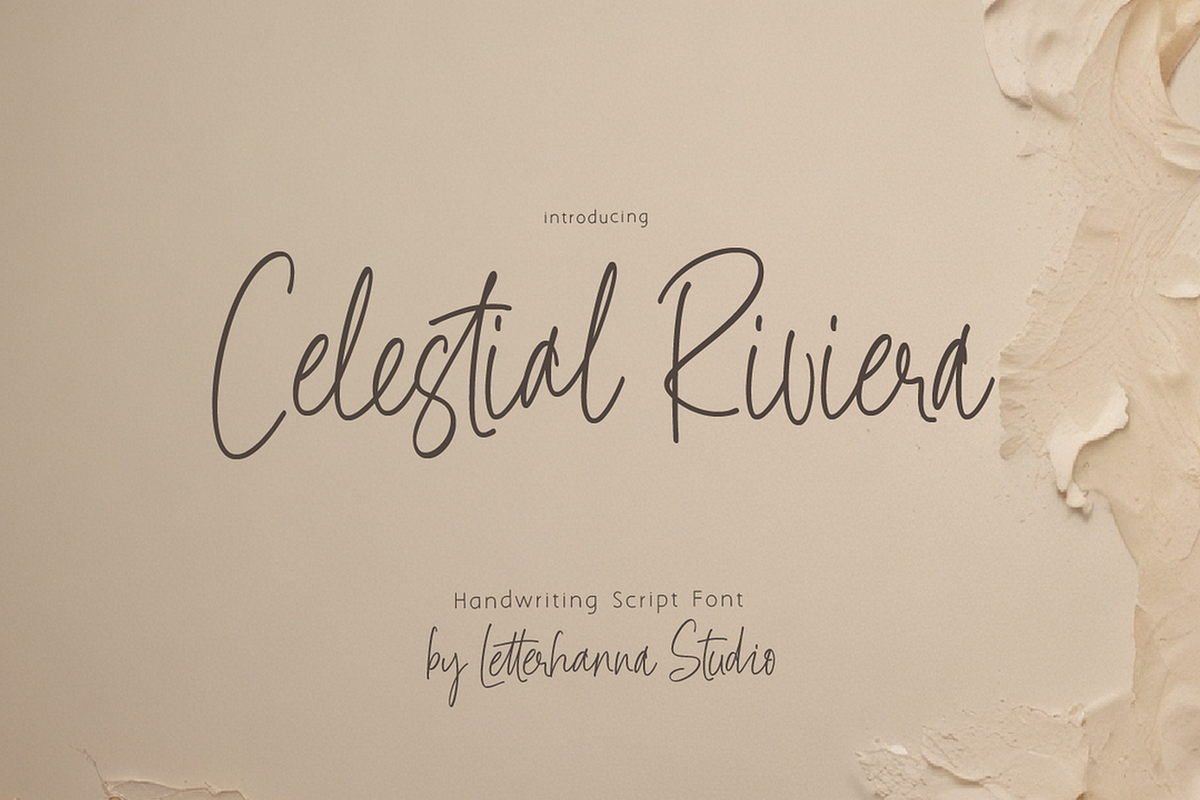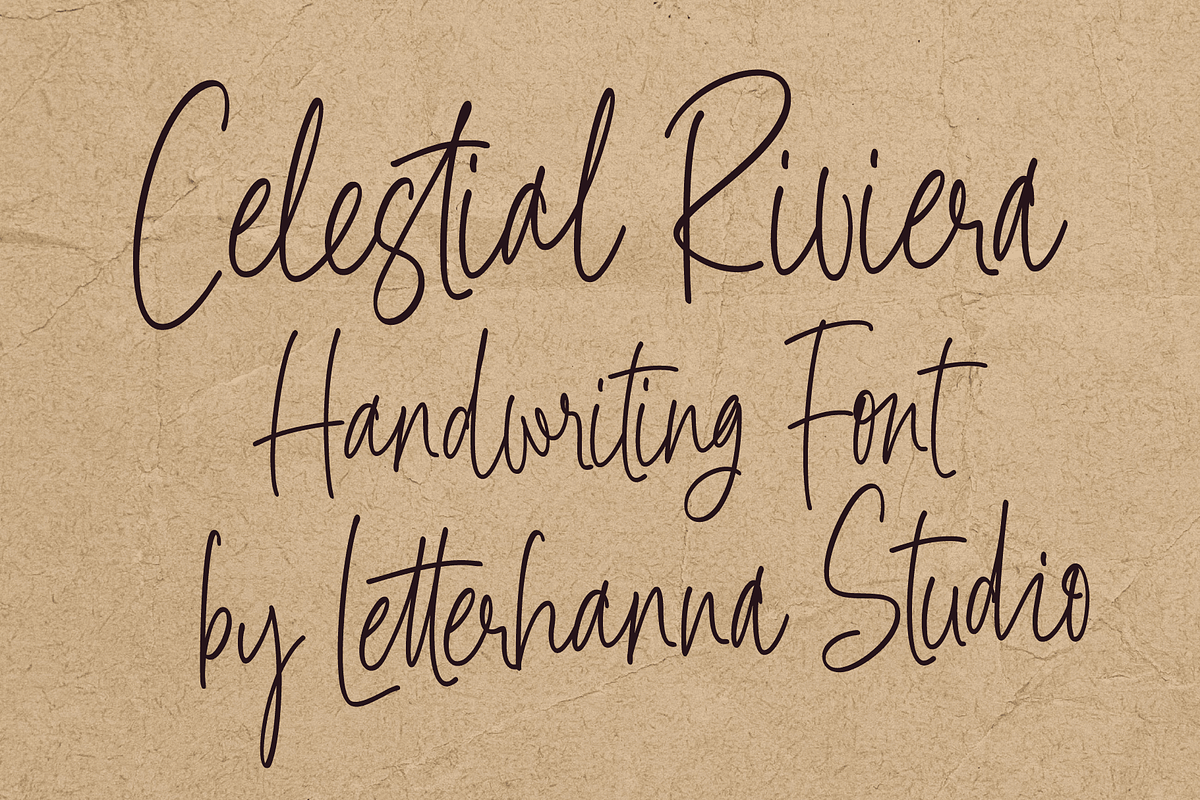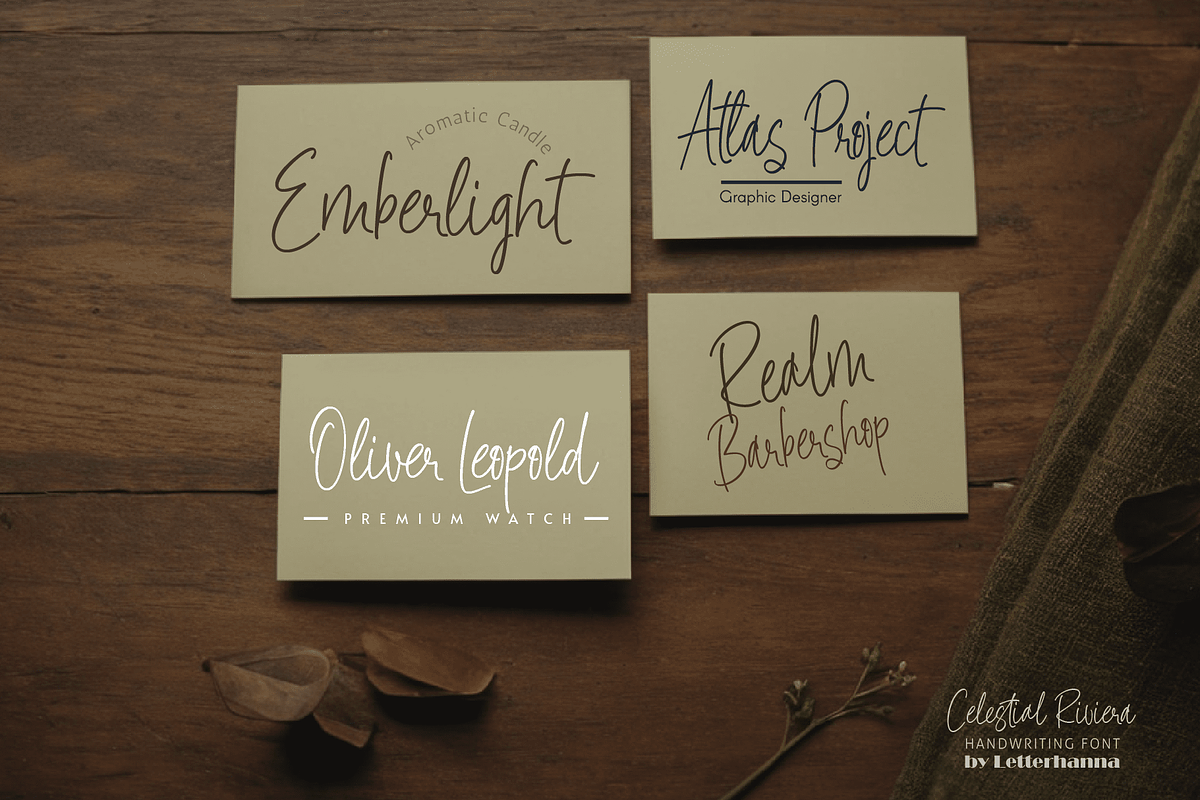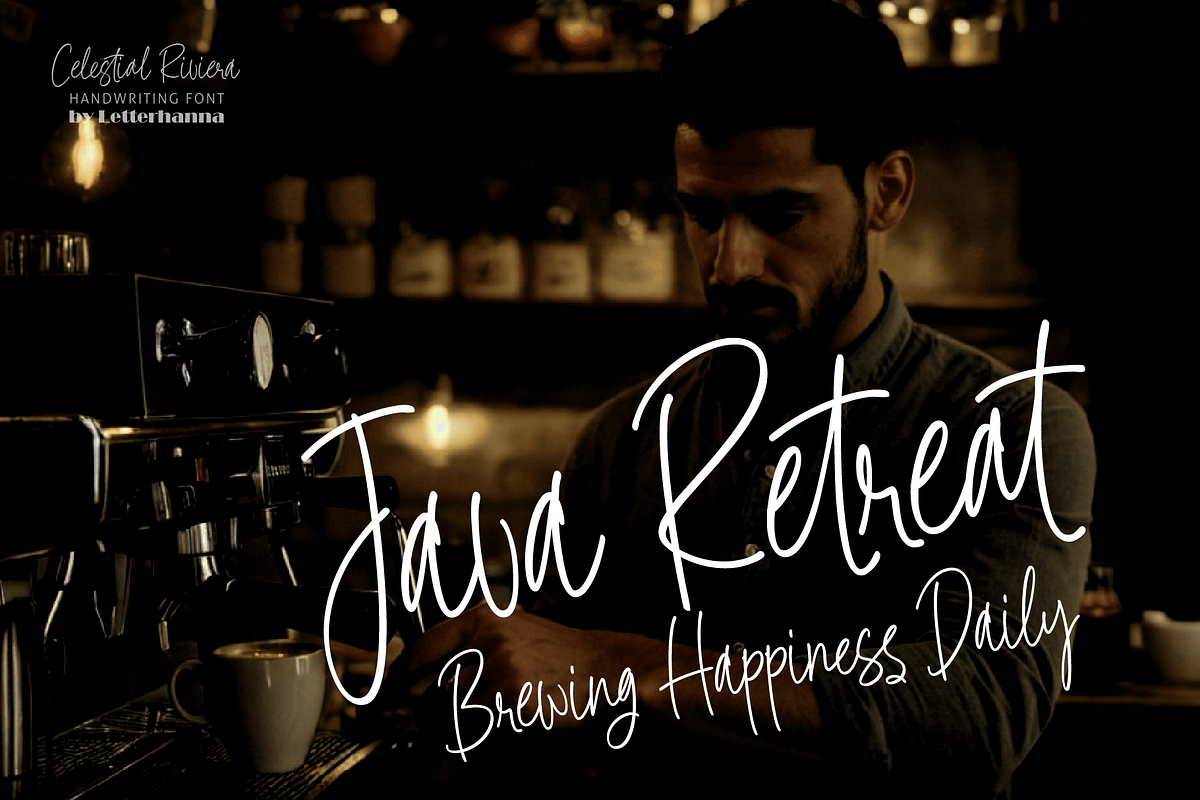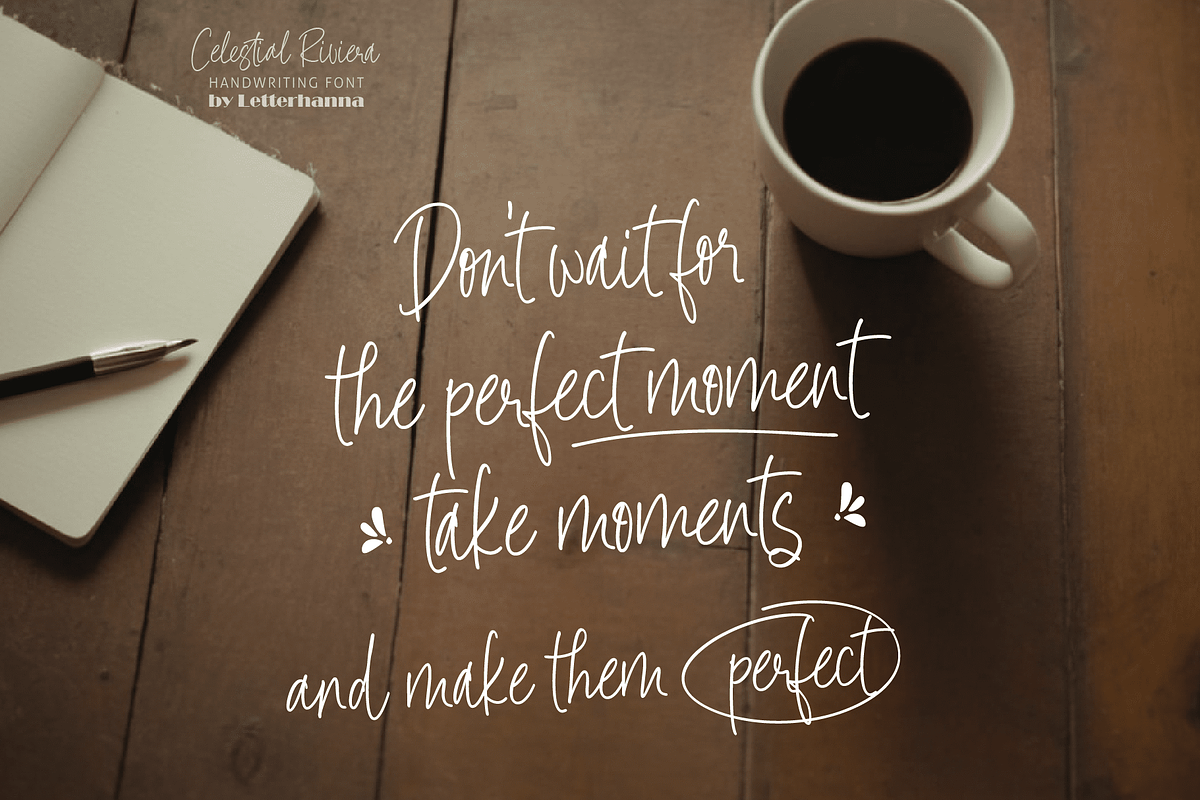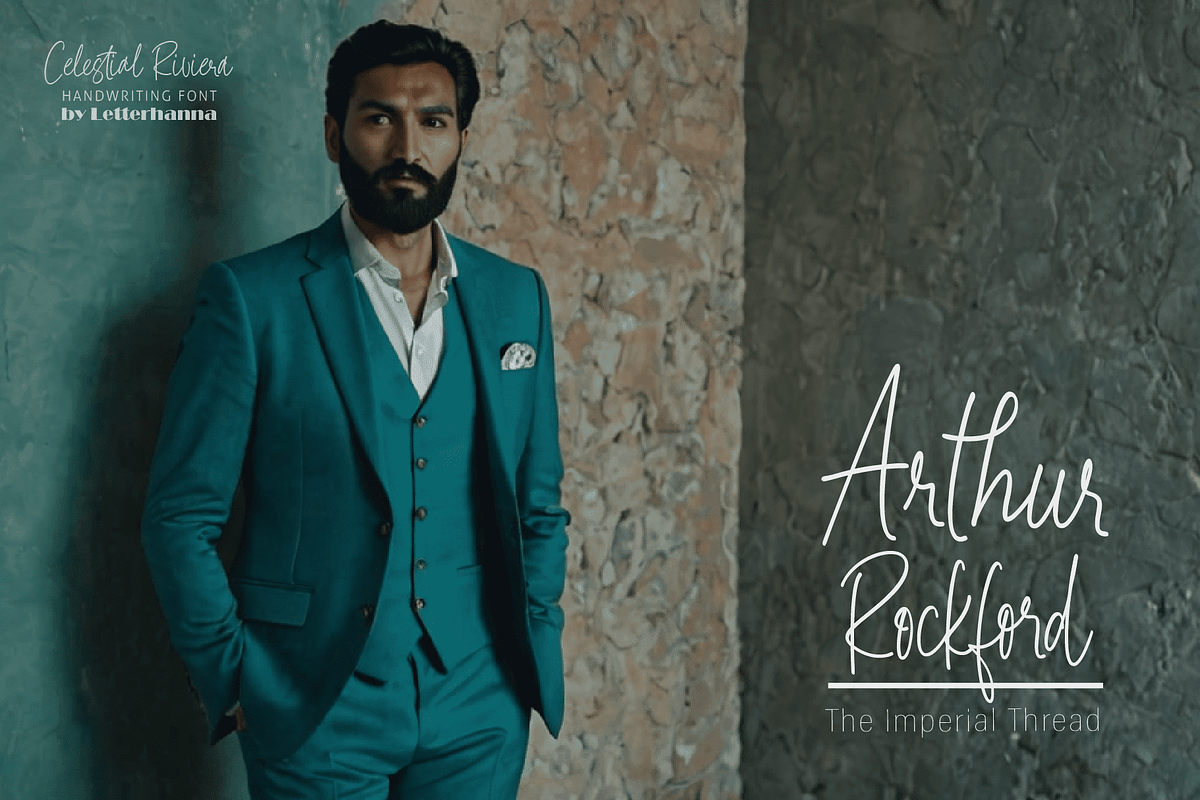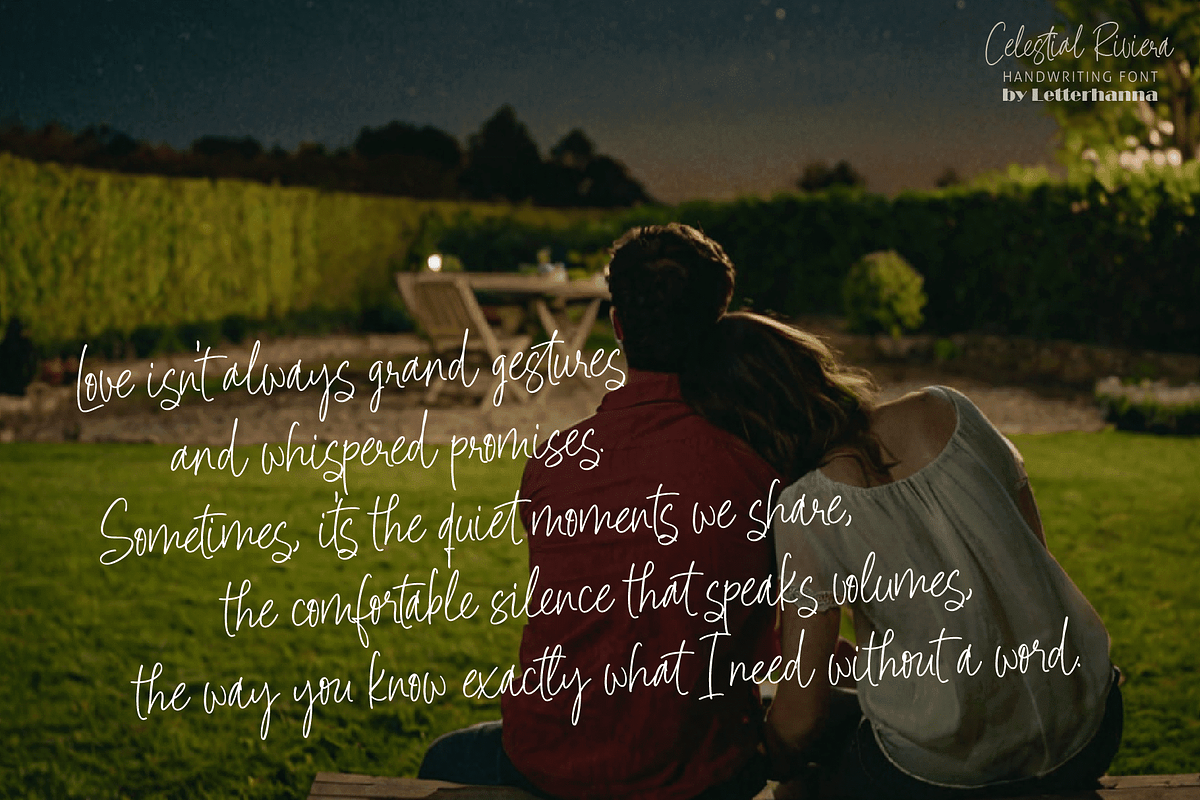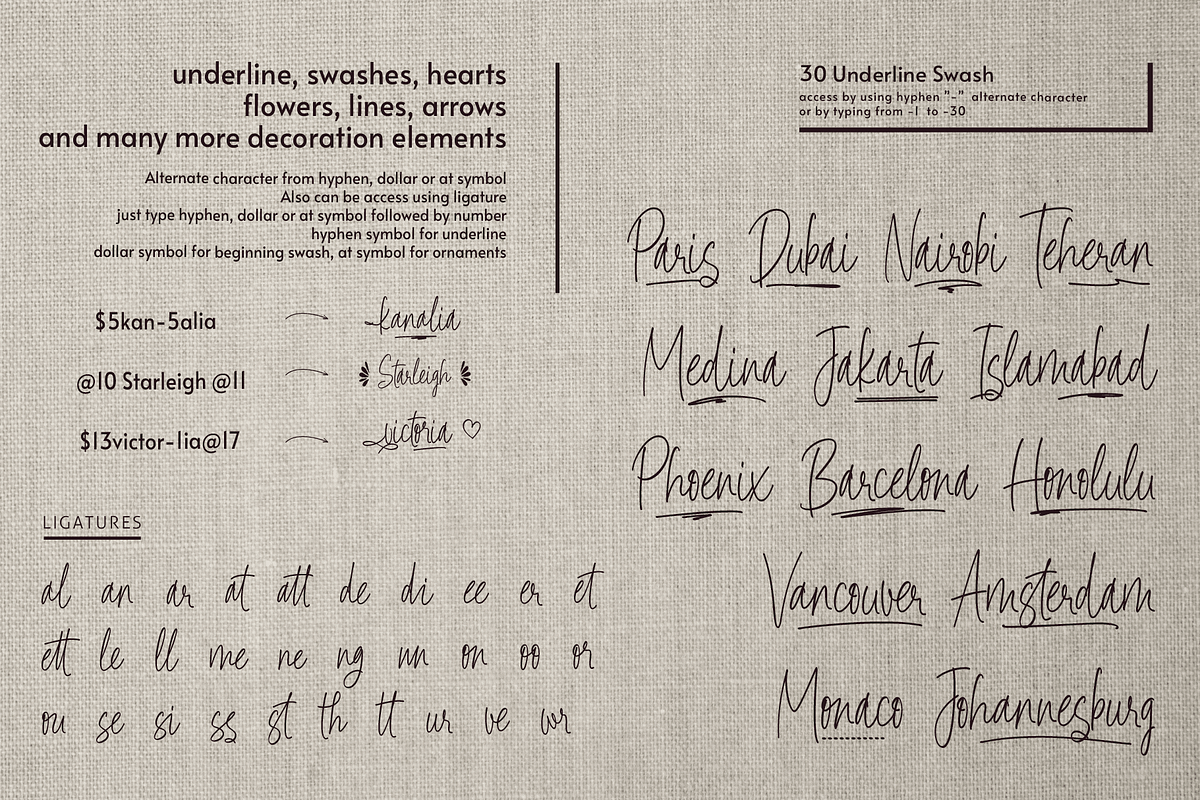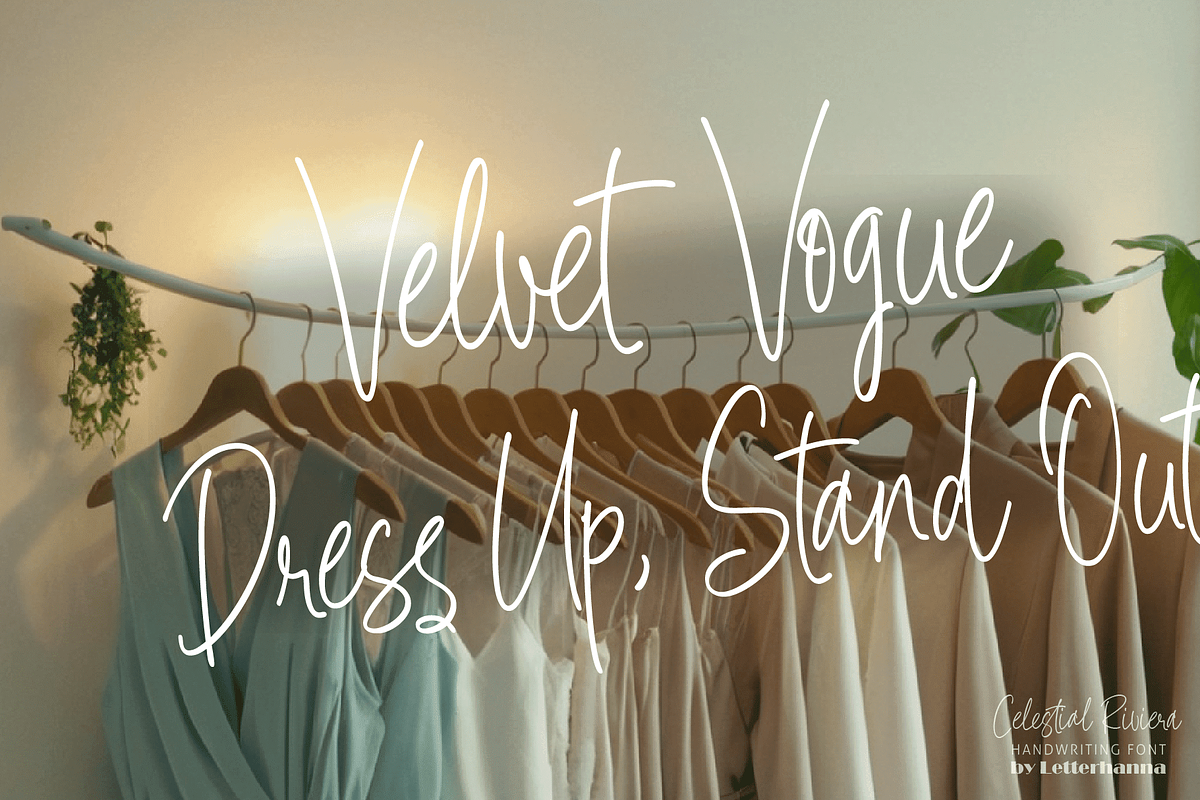
Celestial Riviera Handwriting Font
Introducing Celestial Riviera, an artistic handwritten script font designed for those who dare to stand out. With its striking strokes and expressive curves, this font exudes confidence and creativity, making it perfect for statement branding, edgy designs, and high-impact visuals. Every letter flows with intentional energy, blending raw artistic flair with refined elegance.
Ideal for logos, posters, fashion editorials, and packaging, Celestial Riviera commands attention while maintaining an air of sophistication. Its strong yet fluid style makes it a go-to choice for designers seeking a font that speaks power, passion, and artistry. Elevate your projects with a typeface that transforms words into works of art.
Easy Access to Glyphs and Swashes
Accessing Swashes and Ornaments
Underline Swashes: Use a hyphen symbol "-" followed by a number between 1 and 30. For example, type "-3", "-22", or "-17" to get various underline swashes. Head/Beginning Swashes: Use a dollar sign "$" followed by a number between 1 and 9. For example, type "$2" or "$8" to get different head/beginning swashes. Ornaments: Use an "at" symbol "@" followed by a number between 1 and 26. For example, type "@4" or "@13" to get different ornaments.